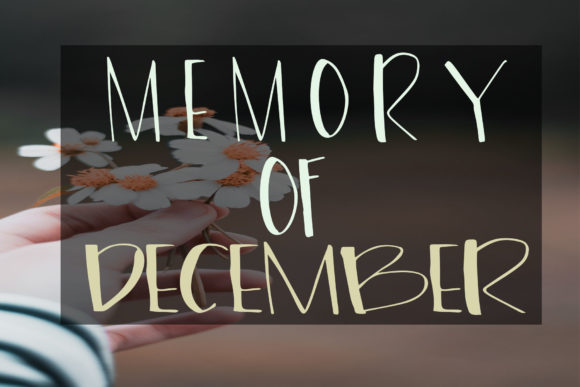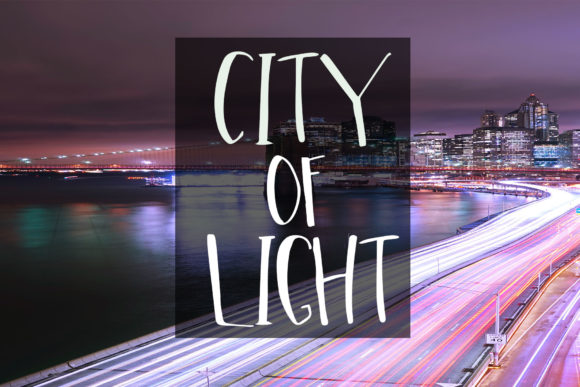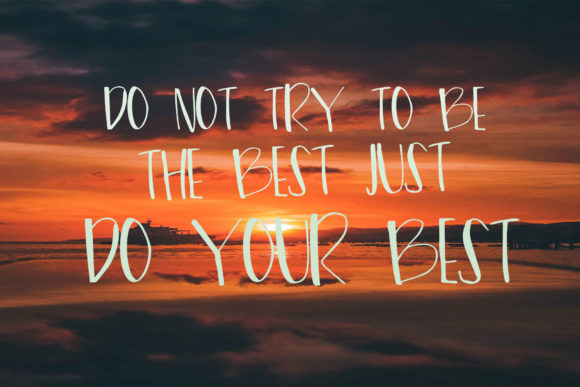
Lakota Font
About Lakota Font
Lakota is a all-caps handwritten font. This eye-catching font can be used in a wide variety of applications from headlines to logos.